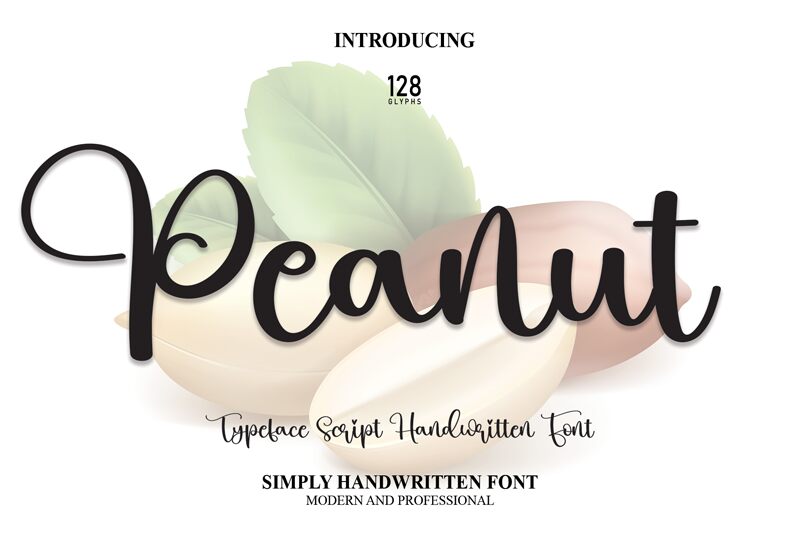
Peanut
Peanut, a captivating calligraphy font by scratchones, exudes elegance and sophistication. With its semi-light weight, this font effortlessly balances a delicate touch with legibility. Perfect for wedding invitations, branding projects, or fashion editorials, Peanut adds a whimsical charm to any design. Its graceful strokes and flowing curves make it ideal for sophisticated logos and luxurious packaging. Whether you're crafting romantic love letters or creating stylish event posters, Peanut's calligraphic style will elevate your project to new heights of beauty and refinement. Immerse yourself in the world of Peanut and let your creativity flourish.
The latest style letters are perfect for wall displays, wedding invitations, social media post logos, advertisements, product packaging, product designs, labels, photography, watermarks, invitations, stationery, and any project that requires taste handwriting.